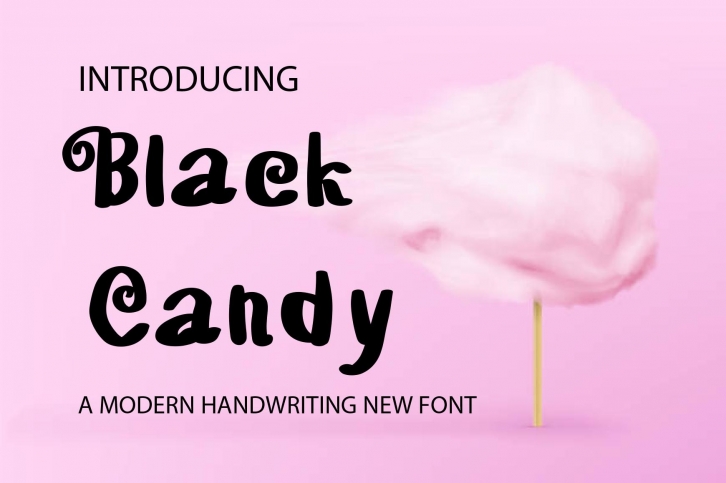
Black Candy is a cute and bold handwritten font that will look outstanding in any context. Whether you’re looking for fonts for Instagram or calligraphy scripts for DIY projects, this font will turn any creative idea into a true piece of art!
Black Candy can be used for various purposes such as logos, headings, t-shirts, letterhead, signage, labels, news, posters, badges, and more.